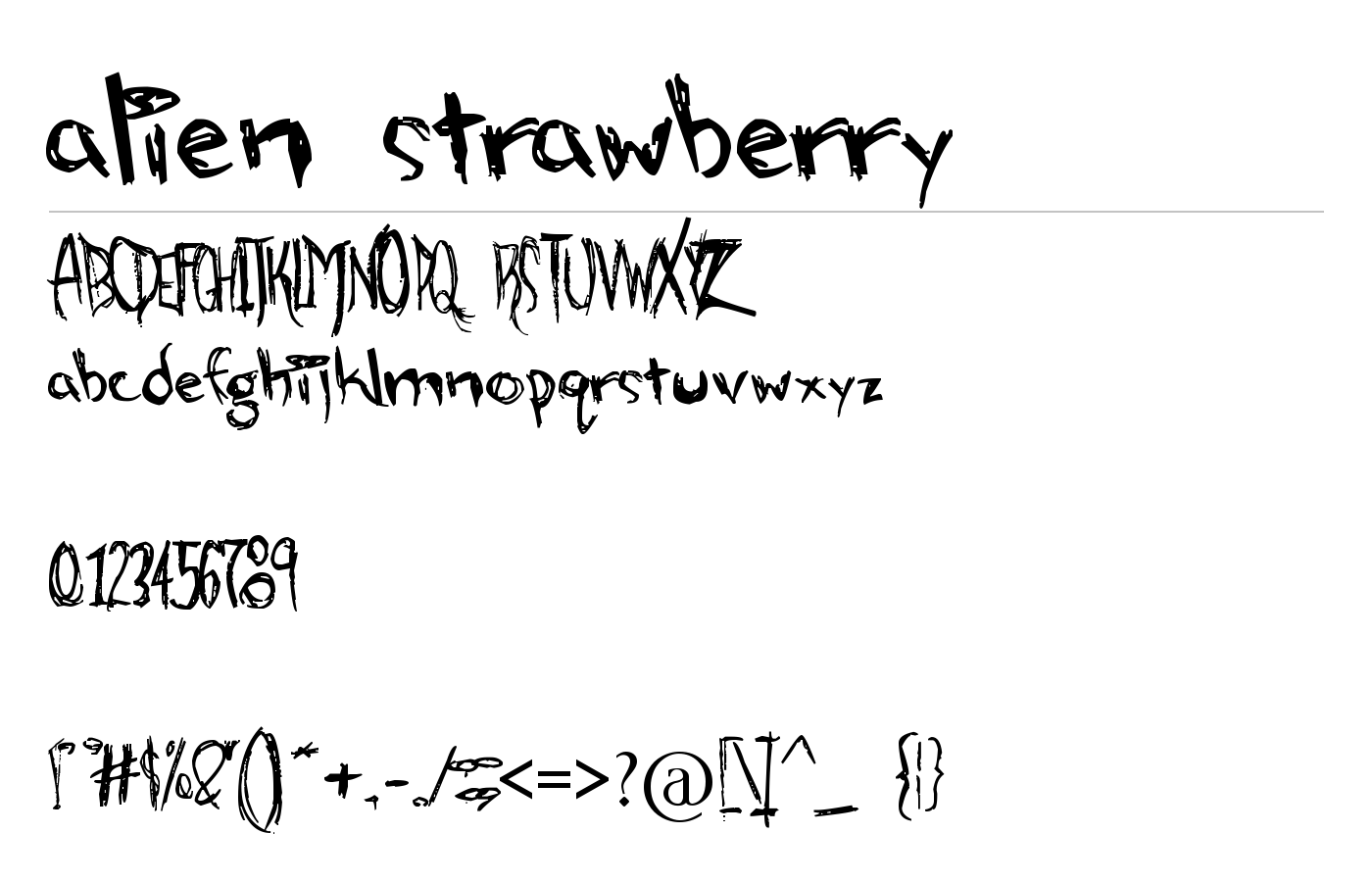
Alien Strawberry is a quirky, handwritten-style font with a rough, sketchy texture that gives it a playful, slightly eerie vibe. Its irregular shapes and uneven strokes make it feel spontaneous and expressive, ideal for creative projects needing a unique, informal look. This font works well in posters, edgy branding, and any design aiming for a fun yet unconventional personality.
alien strawberry Font
About alien strawberry Font